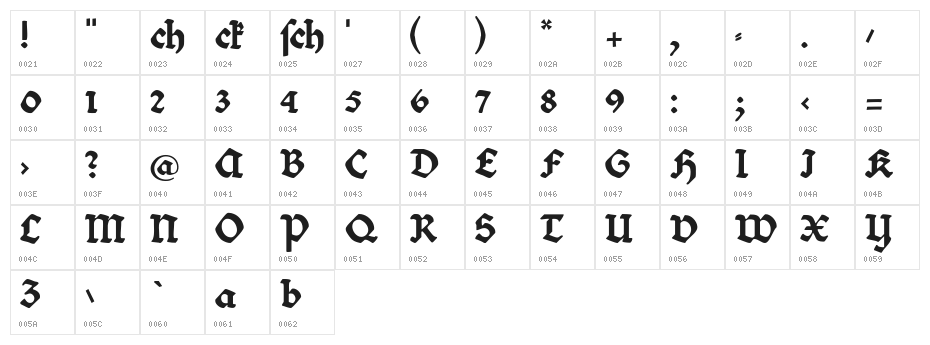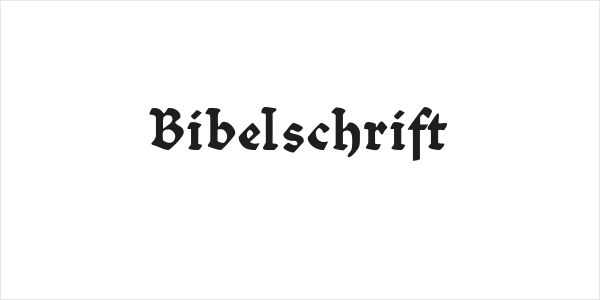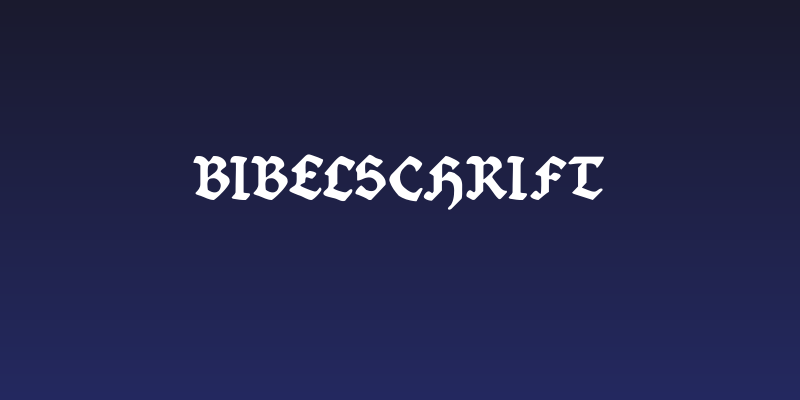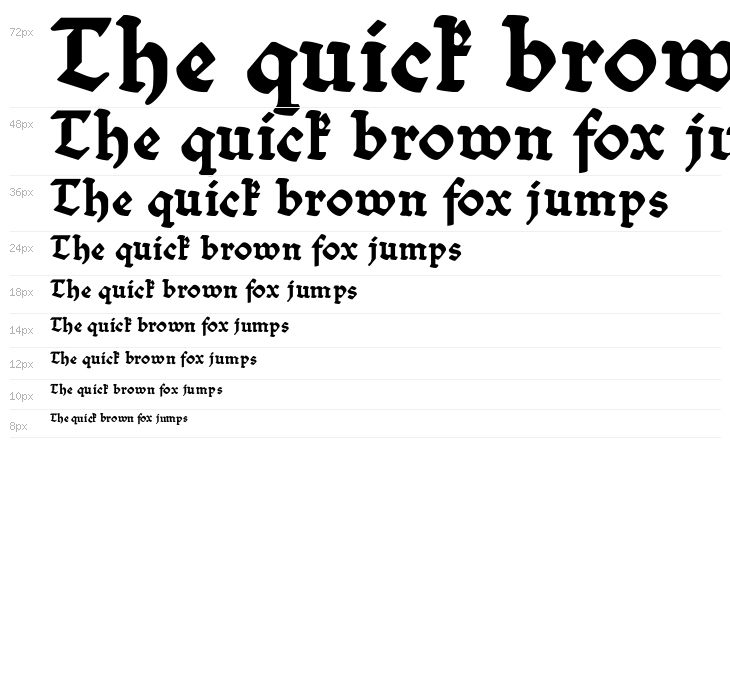
This font embodies a traditional and historical aesthetic, reminiscent of medieval script styles. It features ornate and intricate letterforms with sharp, angular strokes and a distinct Gothic influence. The uppercase and lowercase letters maintain a consistent style, with bold, dramatic curves and pointed serifs that enhance its decorative appeal. The numbers and special characters are equally stylized, contributing to the font's cohesive and elaborate design. This typeface is ideal for projects that require a touch of antiquity and elegance, such as historical documents, themed event invitations, or branding for vintage-inspired products.
| Use Case | Headlines, Logos, Decorative text |
| Proposed Projects | Ideal for historical documents, themed event invitations, vintage branding, and decorative signage. |